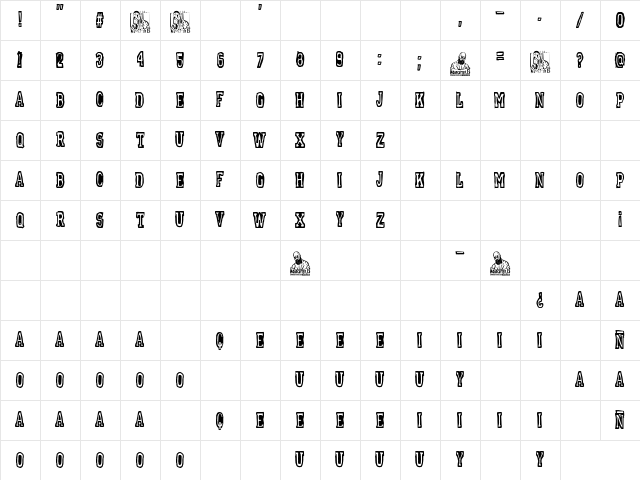
Alcoholics Anonymous Regular
Designer: Woodcutter Manero
Design Context for Alcoholics Anonymous
Alcoholics Anonymous is a composed and adaptable typeface that performs quietly and consistently across a wide range of design contexts.